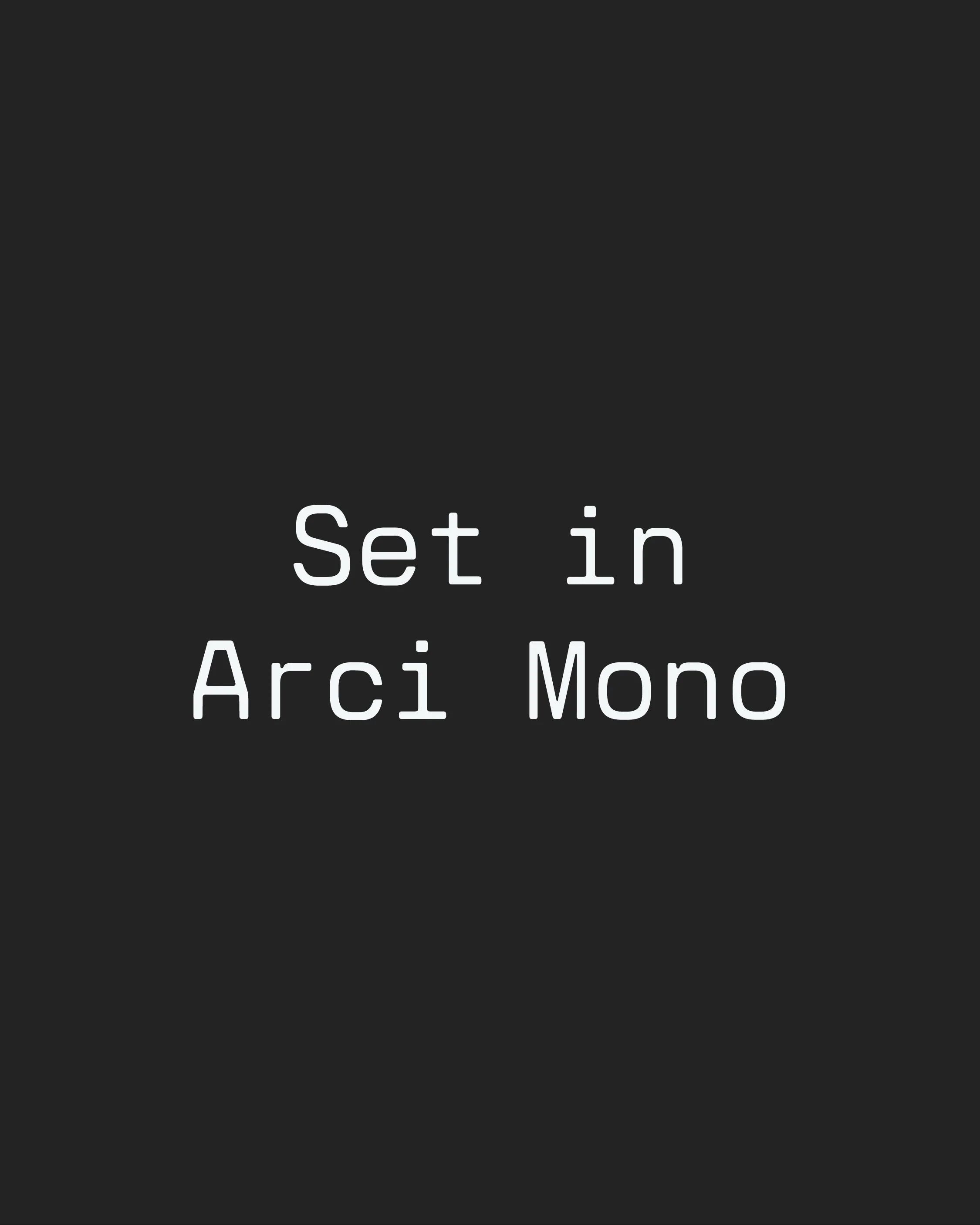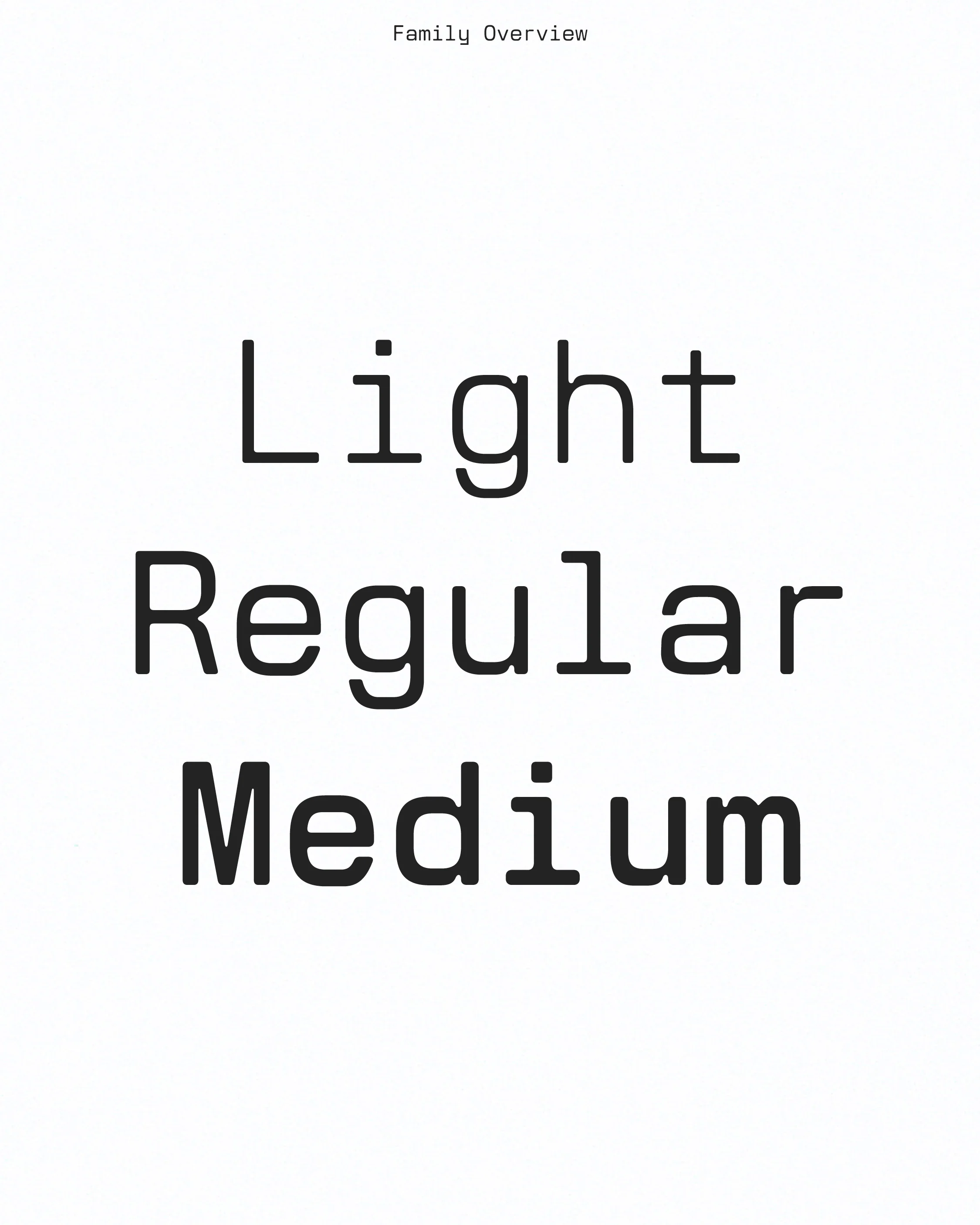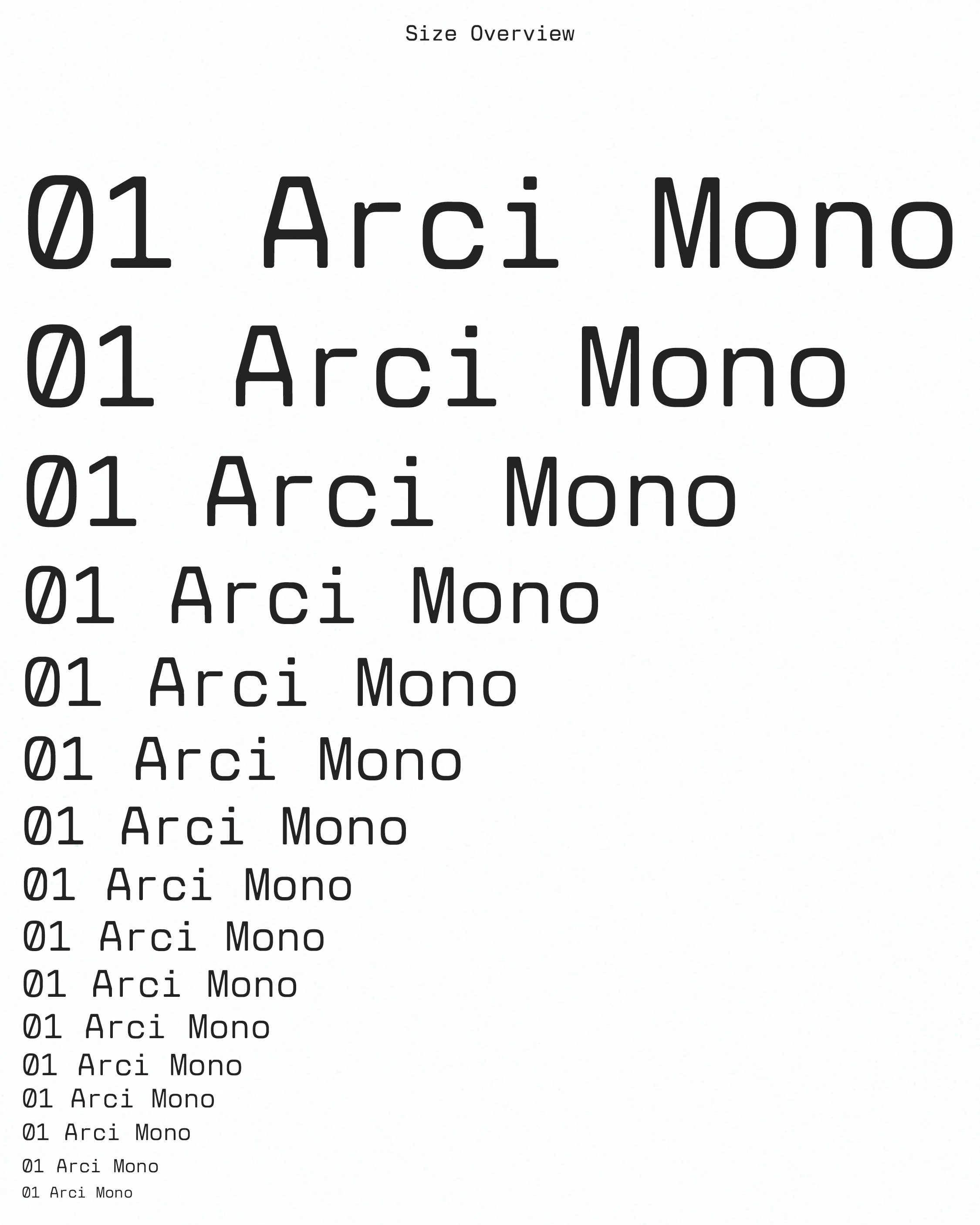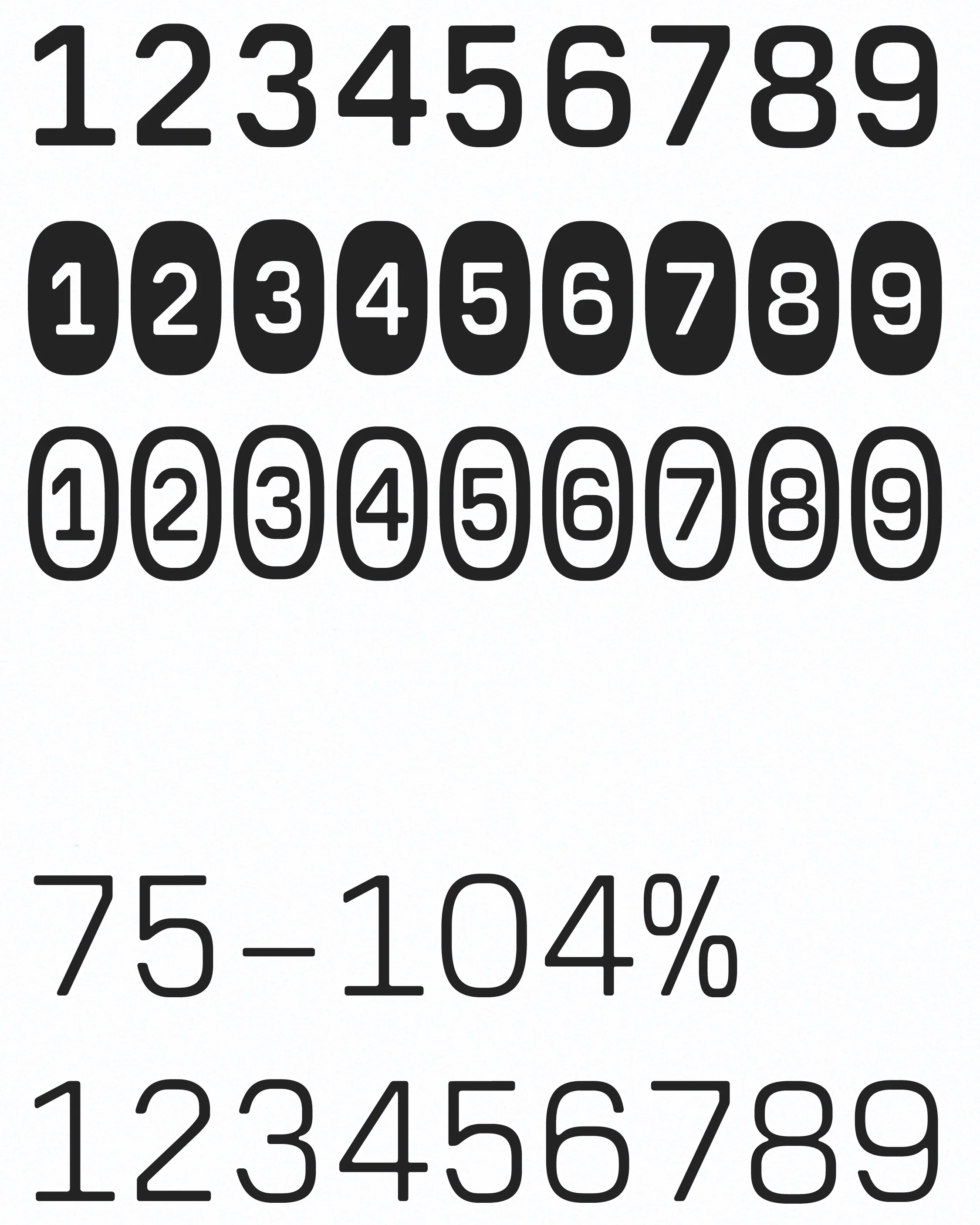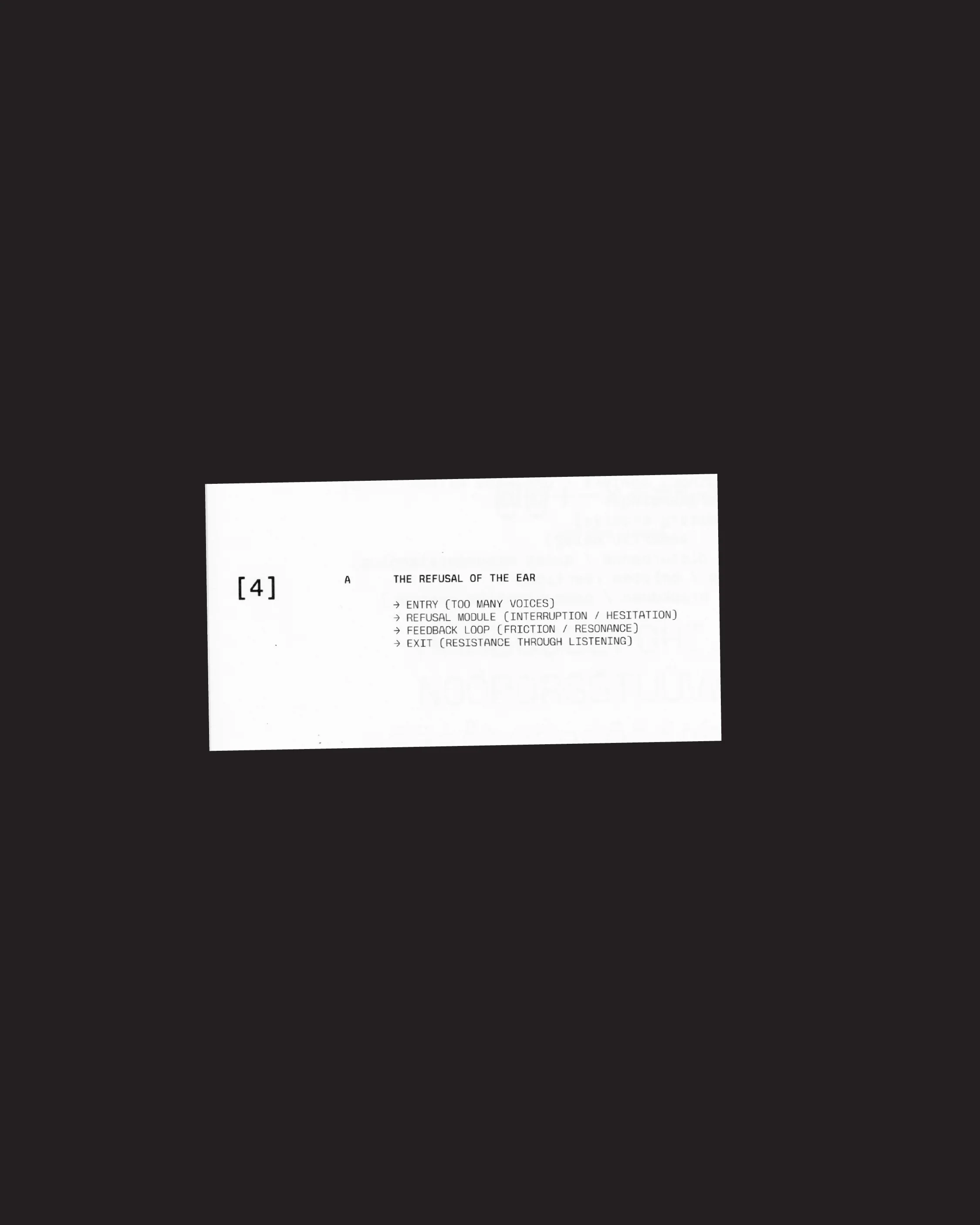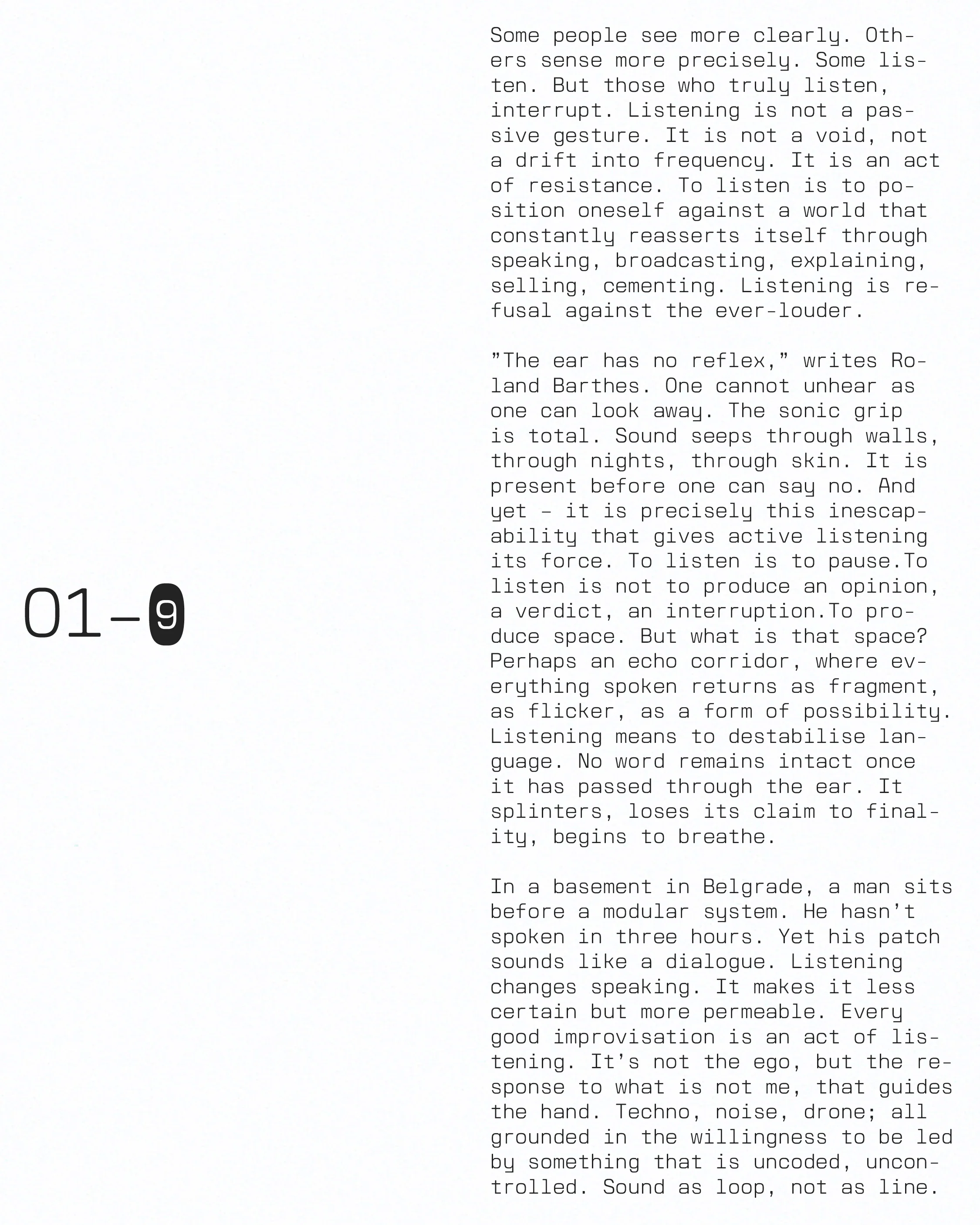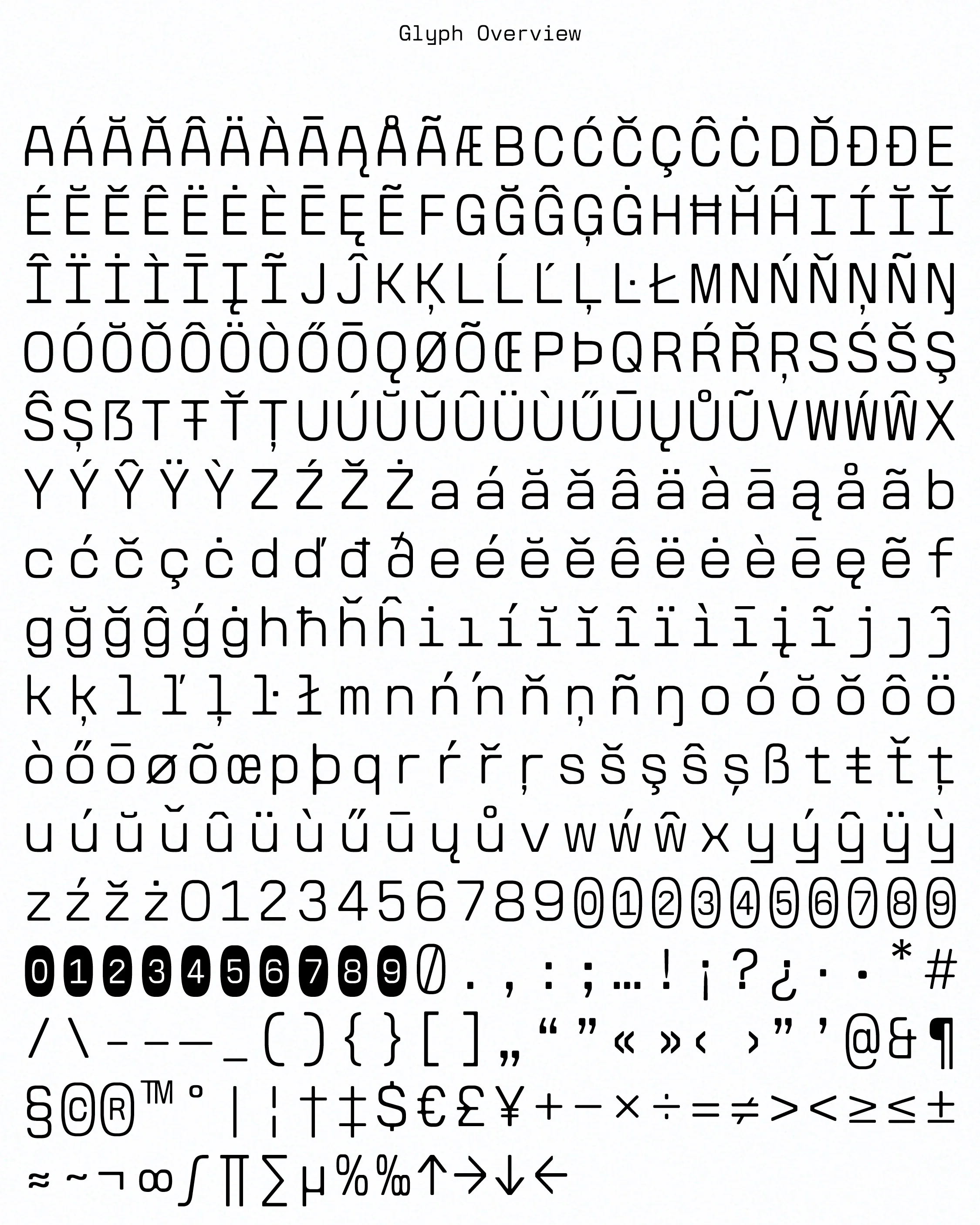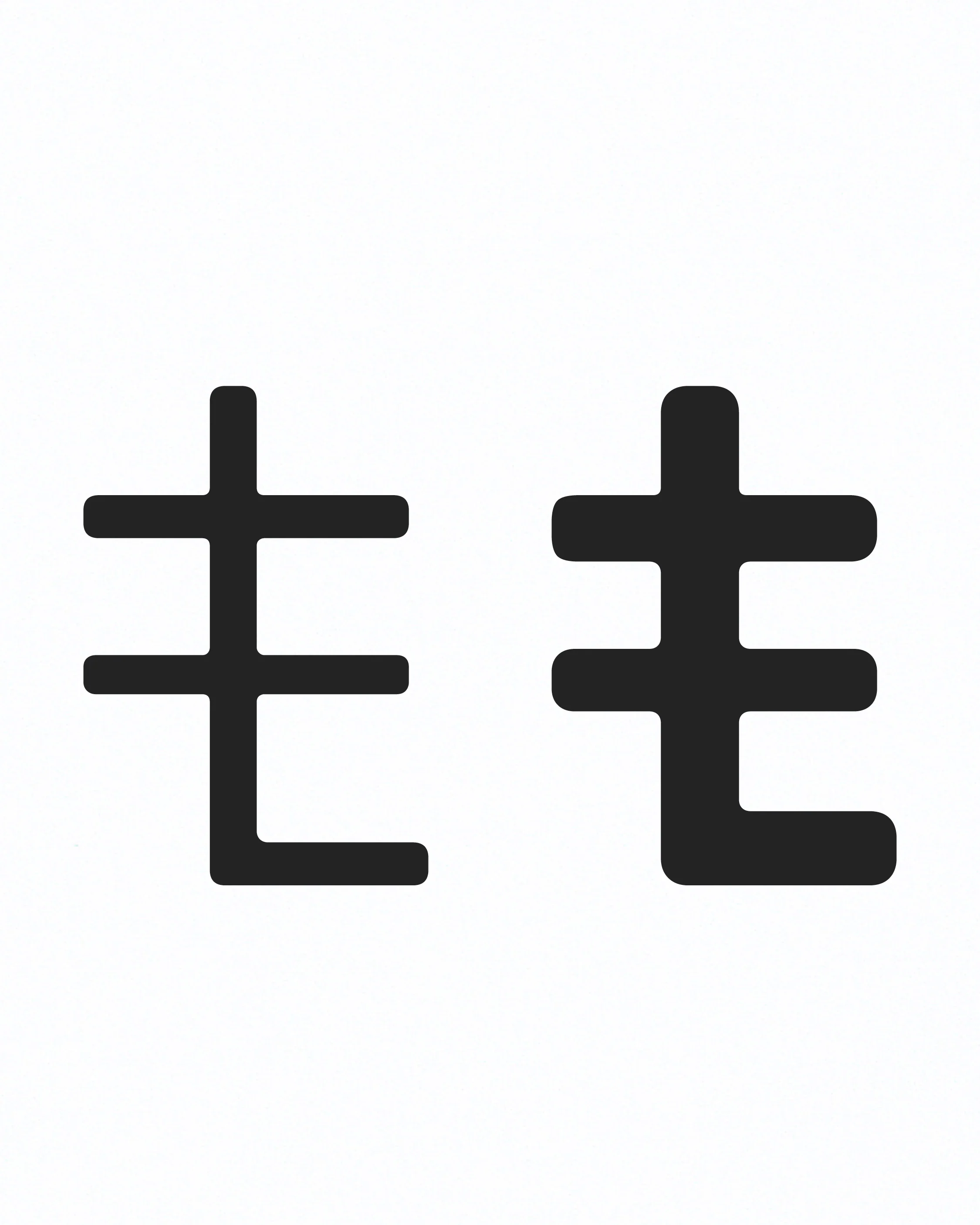
Arci Mono
Arci Mono is a monospaced variable typeface that borrows its logic from modular synthesisers and technical interfaces. The strict repetition of the monospace grid mirrors the fixed steps of a sequencer, while the letterforms themselves retain a softness that resists mechanical hard-ness.